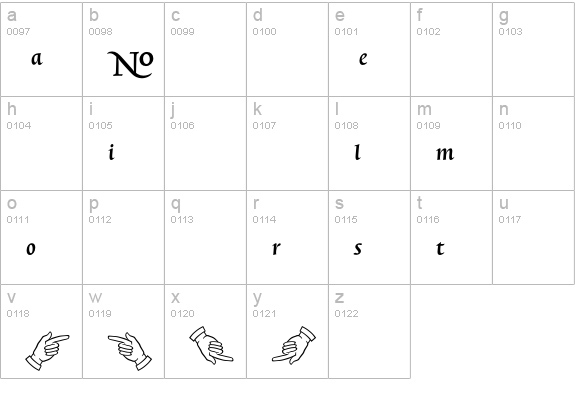
TriniteNo2-MediumItalicPi font is a captivating and stylish typeface that effortlessly blends modernity with elegance. With its medium weight and slanted italics, this font exudes a sense of sophistication and professionalism. Designed for those seeking a touch of uniqueness in their designs, TriniteNo2-MediumItalicPi stands out with its distinct, slightly curved letterforms that strike the perfect balance between classic and contemporary. The sleek and dynamic nature of this font makes it perfect for a wide range of design projects, from branding and advertising to editorial design and packaging. Whether used in headlines, subheadings, or body text, TriniteNo2-MediumItalicPi adds a touch of refinement and flair to any composition. What makes this font even more appealing is that it is freely available to download at FontsMarket.com. This means that designers and creatives can easily access and utilize this beautiful typeface without any restrictions. Whether you're working on personal or commercial projects, TriniteNo2-MediumItalicPi offers you the freedom to bring your creative visions to life. So, if you're looking for a versatile and eye-catching font that effortlessly combines modernity with elegance, TriniteNo2-MediumItalicPi is the perfect choice. Download it for free at FontsMarket.com and elevate your designs to new heights.